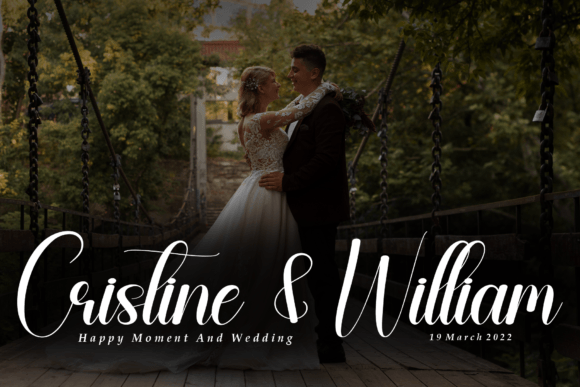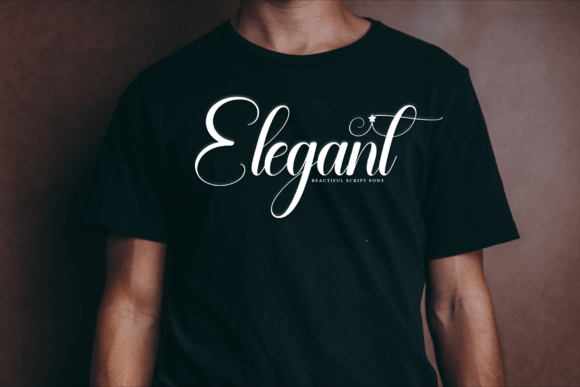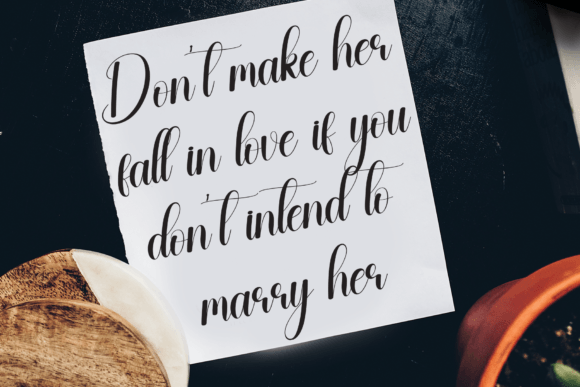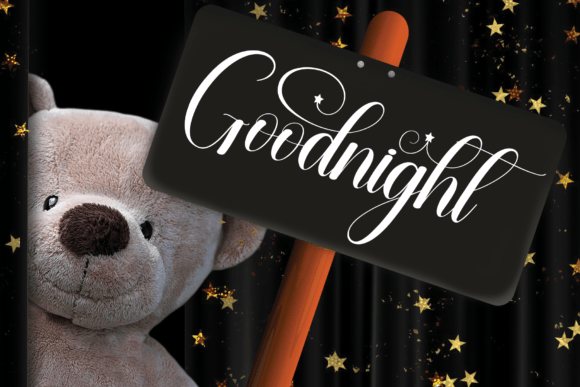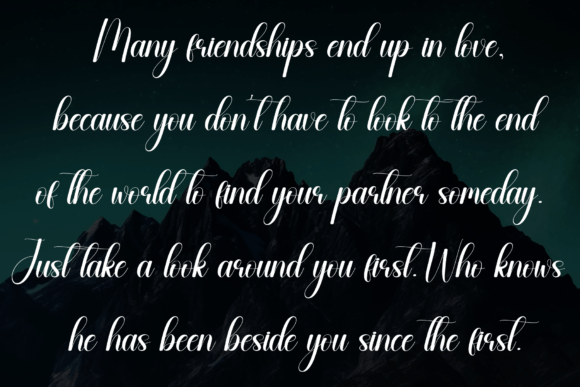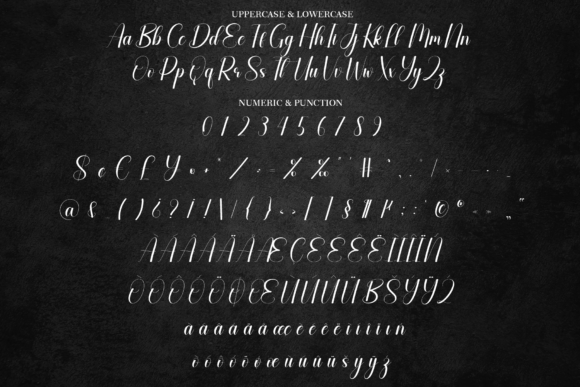
Introducing Deepblack Font: The Sweet and Friendly Handwritten Display Font
Are you looking for a font that can add a touch of sweetness and friendliness to your designs? Look no further than Deepblack Font! This beautiful handwritten display font is perfect for creating eye-catching wedding invitations, cards, and other designs that require a fun and playful touch.
What Makes Deepblack Font Special?
Deepblack Font is a unique and charming font that is sure to capture the attention of your audience. Its sweet and friendly style makes it ideal for a variety of design projects, from wedding invitations and cards to posters and social media graphics. The font’s handwritten style gives it a personal and approachable feel, making it perfect for designers and crafters who want to add a touch of warmth and personality to their designs.
Key Features of Deepblack Font
- Cute and Fun: Deepblack Font is a playful and fun font that is sure to add a touch of whimsy to your designs.
- Handwritten Style: The font’s handwritten style gives it a personal and approachable feel, making it perfect for designs that require a touch of warmth and personality.
- Ideal for Wedding Invitations and Cards: Deepblack Font is perfect for creating beautiful and eye-catching wedding invitations, cards, and other paper crafts.
- Easy to Read: The font is easy to read, making it perfect for designs that require a clear and legible text.
Uses of Deepblack Font
Deepblack Font is a versatile font that can be used for a variety of design projects, including:
- Wedding Invitations: Create beautiful and eye-catching wedding invitations that will set the tone for your special day.
- Cards: Design personalized cards for birthdays, anniversaries, and other special occasions.
- Posters: Create eye-catching posters for events, promotions, and other marketing campaigns.
- Social Media Graphics: Add a touch of personality to your social media graphics, including Facebook posts, Instagram stories, and Twitter headers.
- Paper Crafts: Use Deepblack Font to create beautiful and unique paper crafts, including scrapbook pages, journal entries, and other handmade projects.
Tips for Using Deepblack Font
Here are some tips for using Deepblack Font in your designs:
- Use it with a Personal Touch: Deepblack Font is perfect for designs that require a personal touch. Use it to create handmade-style designs that are unique and special.
- Pair it with Other Fonts: Deepblack Font can be paired with other fonts to create a unique and interesting contrast. Try pairing it with a bold font for a striking effect.
- Experiment with Colors: Deepblack Font looks great in a variety of colors. Experiment with different colors to find the one that works best for your design.
Deepblack Font is a sweet and friendly handwritten display font that is perfect for designers and crafters who want to add a touch of personality to their designs. Its cute and fun style makes it ideal for wedding invitations, cards, and other paper crafts. With its easy-to-read style and versatile uses, Deepblack Font is a great addition to any designer’s toolkit.